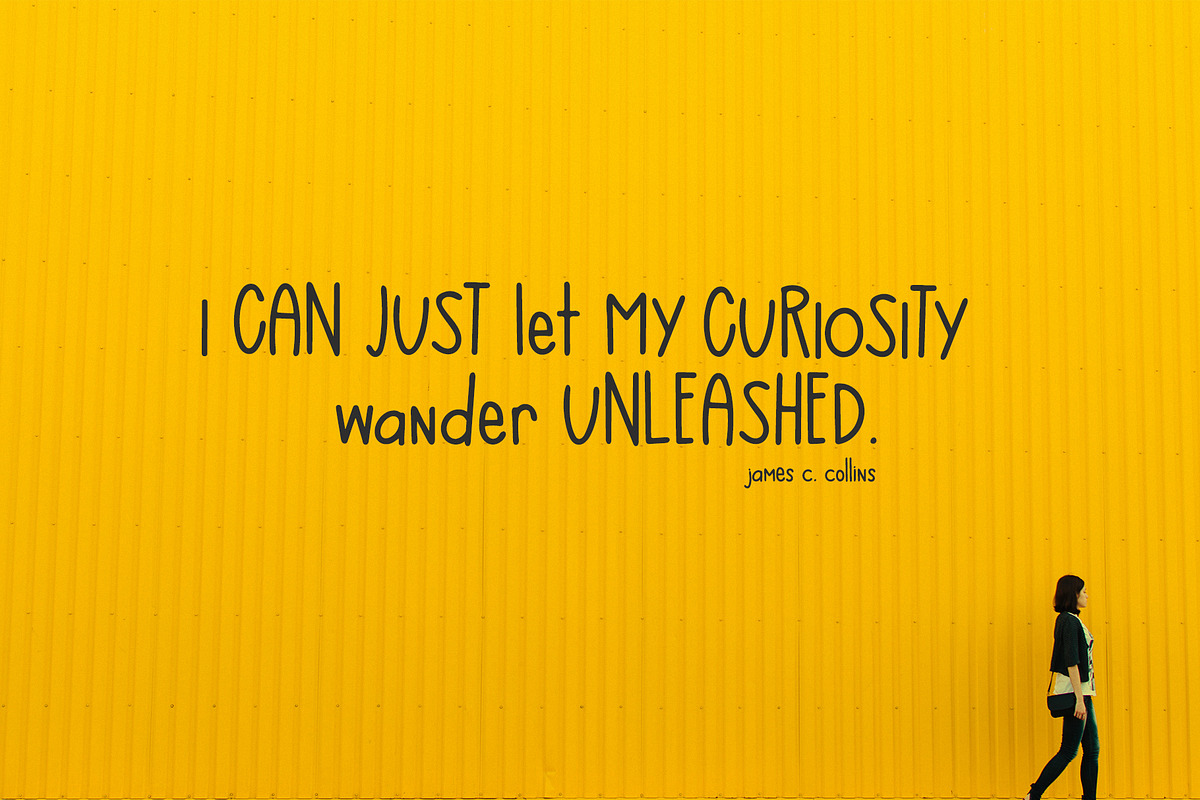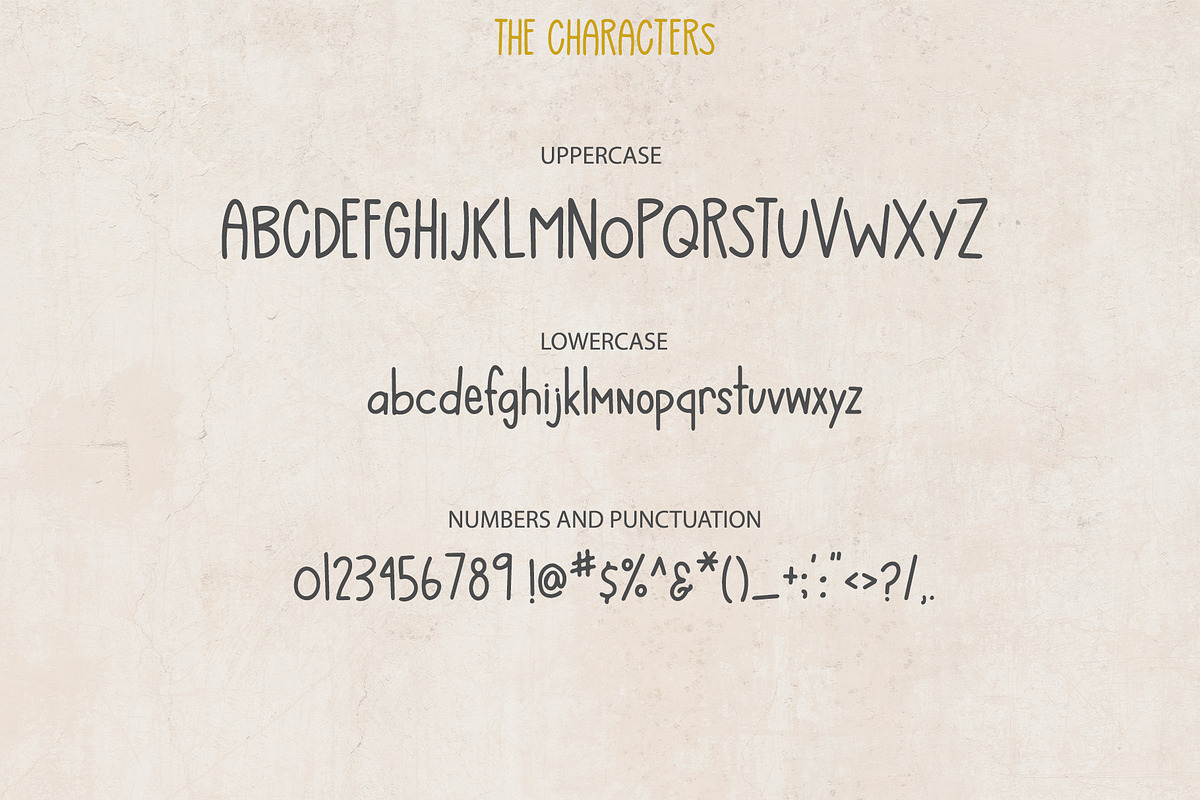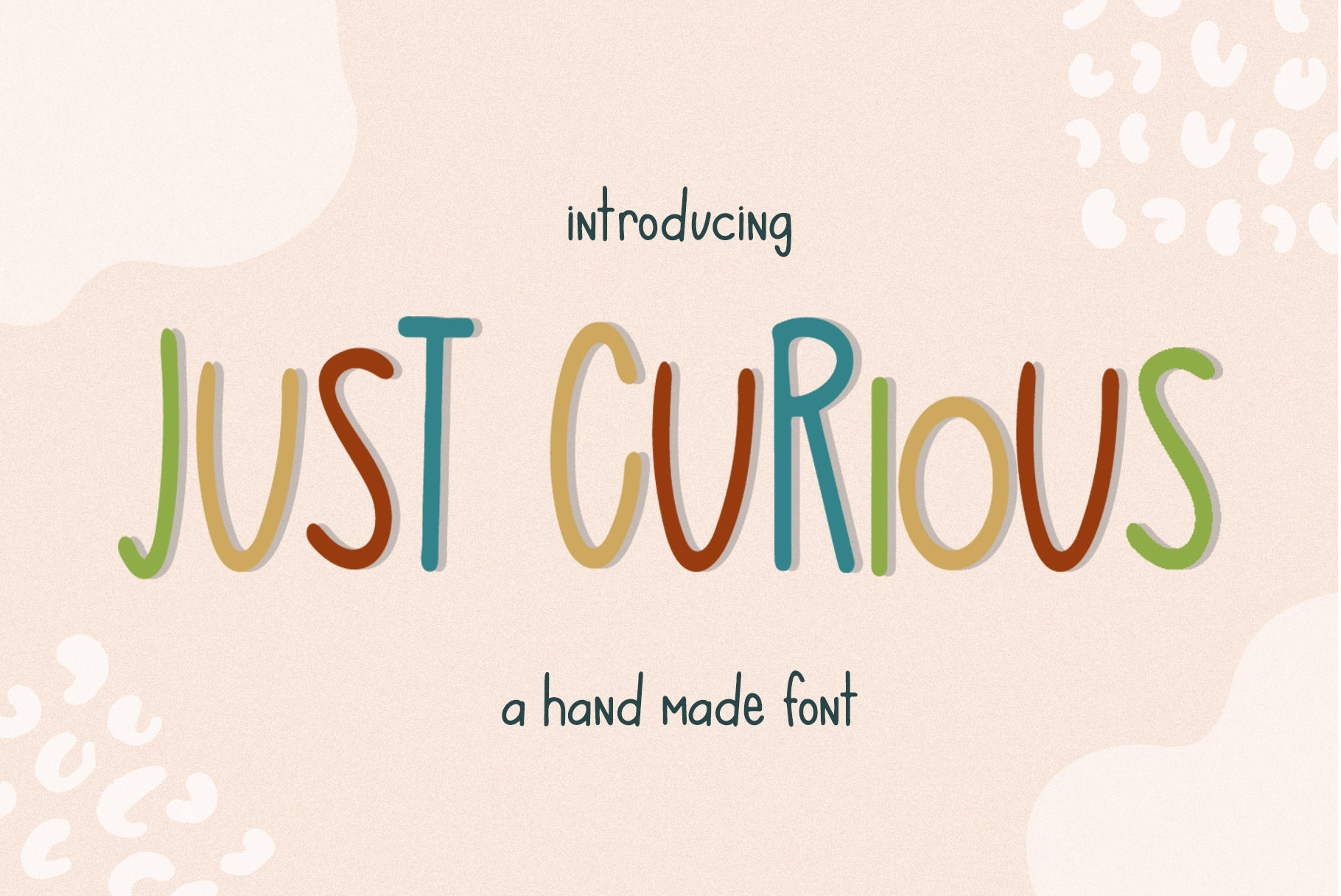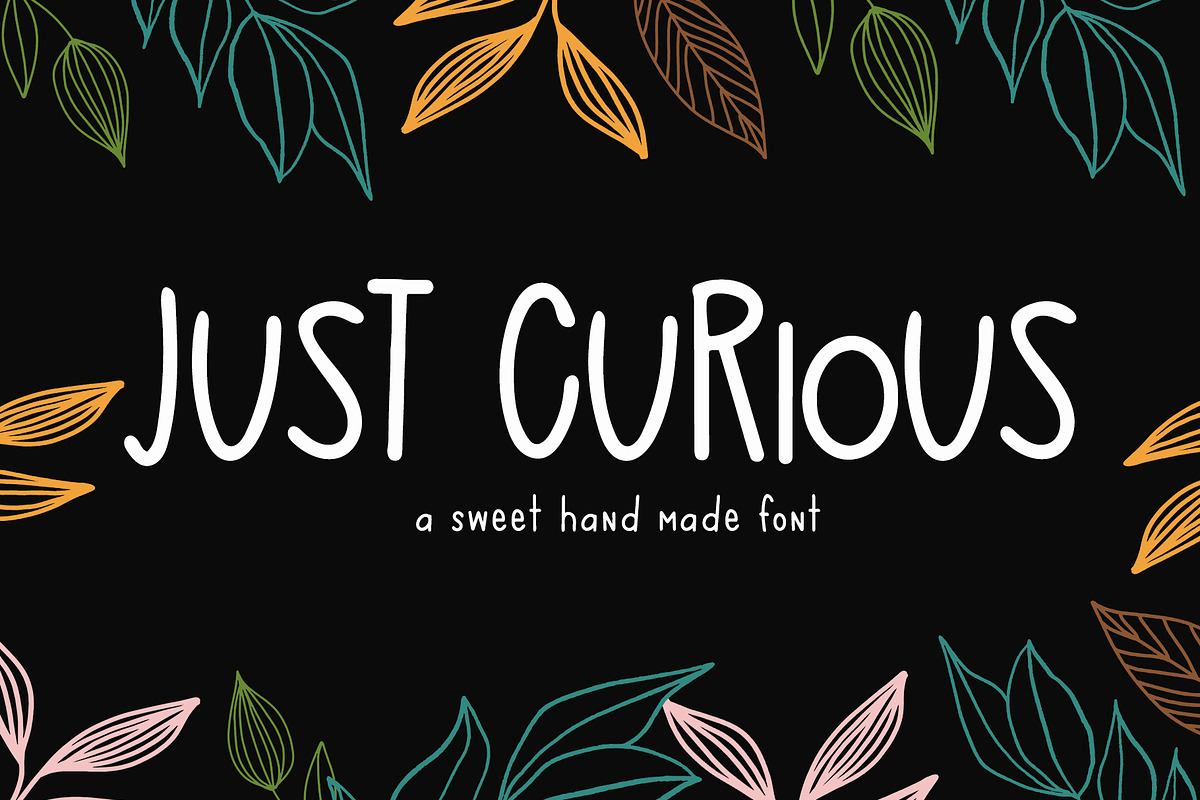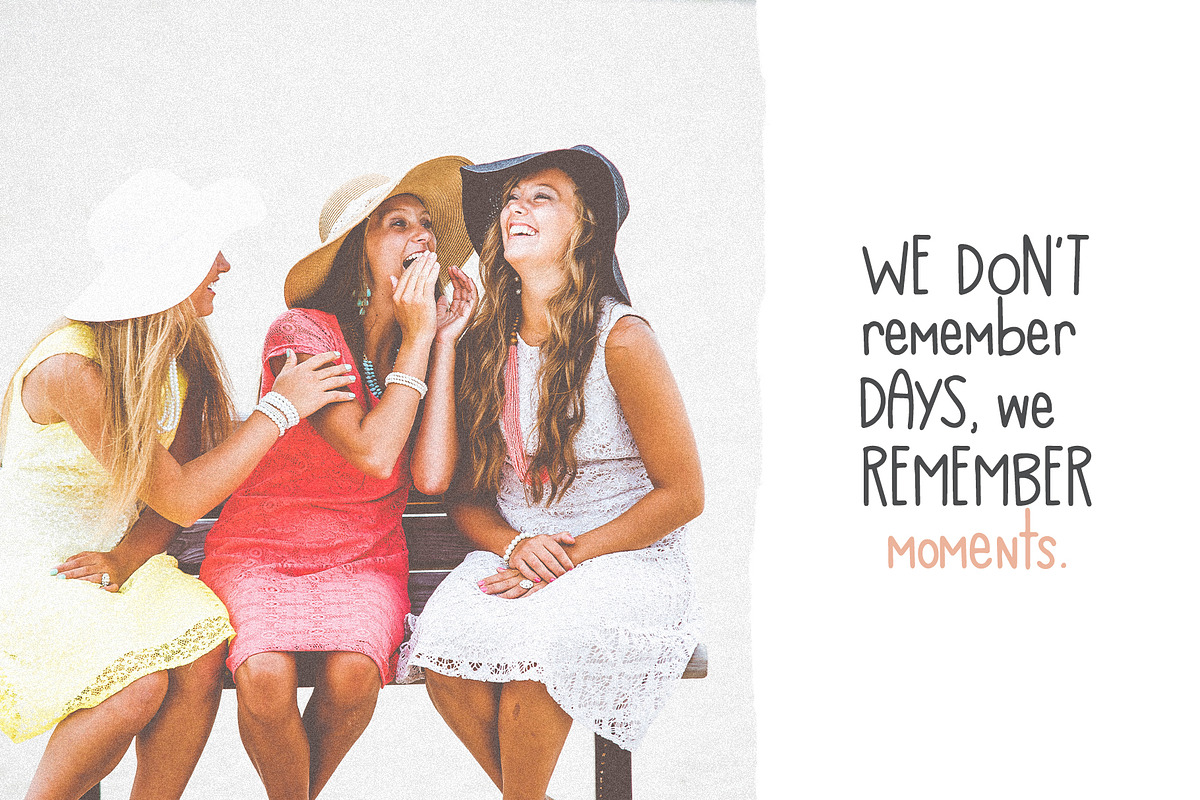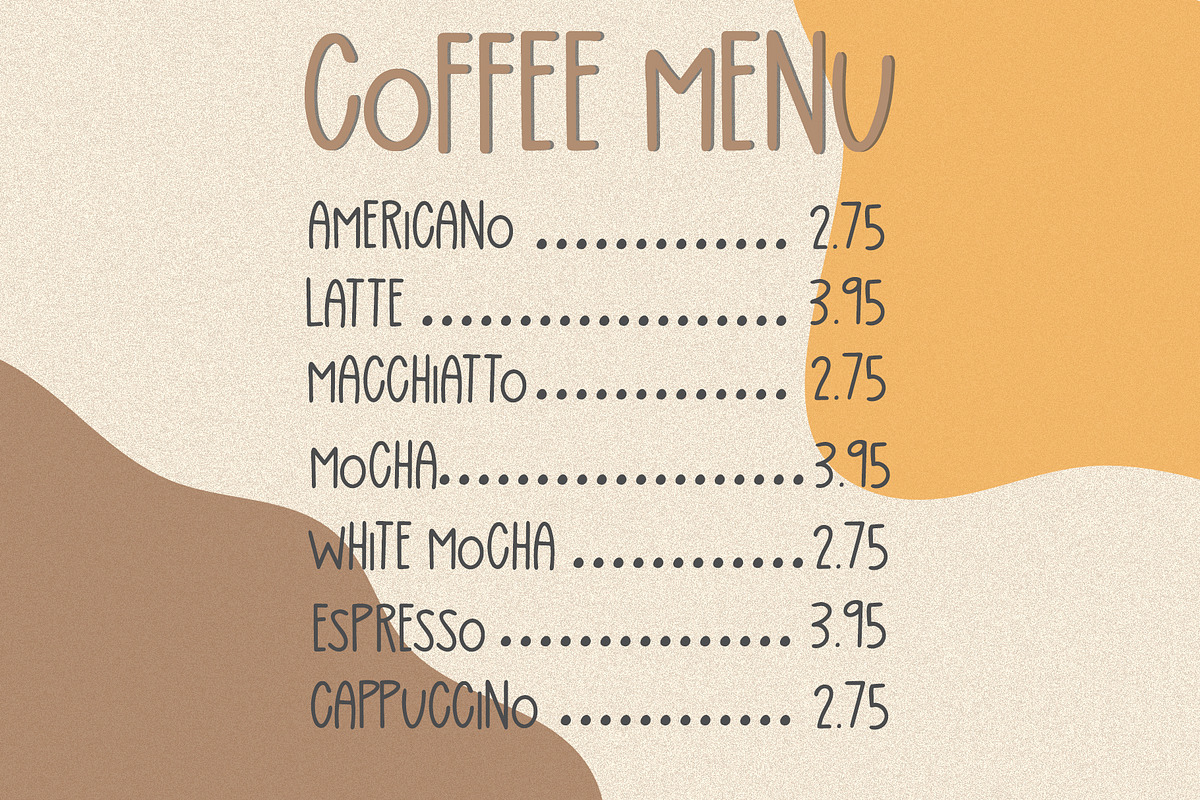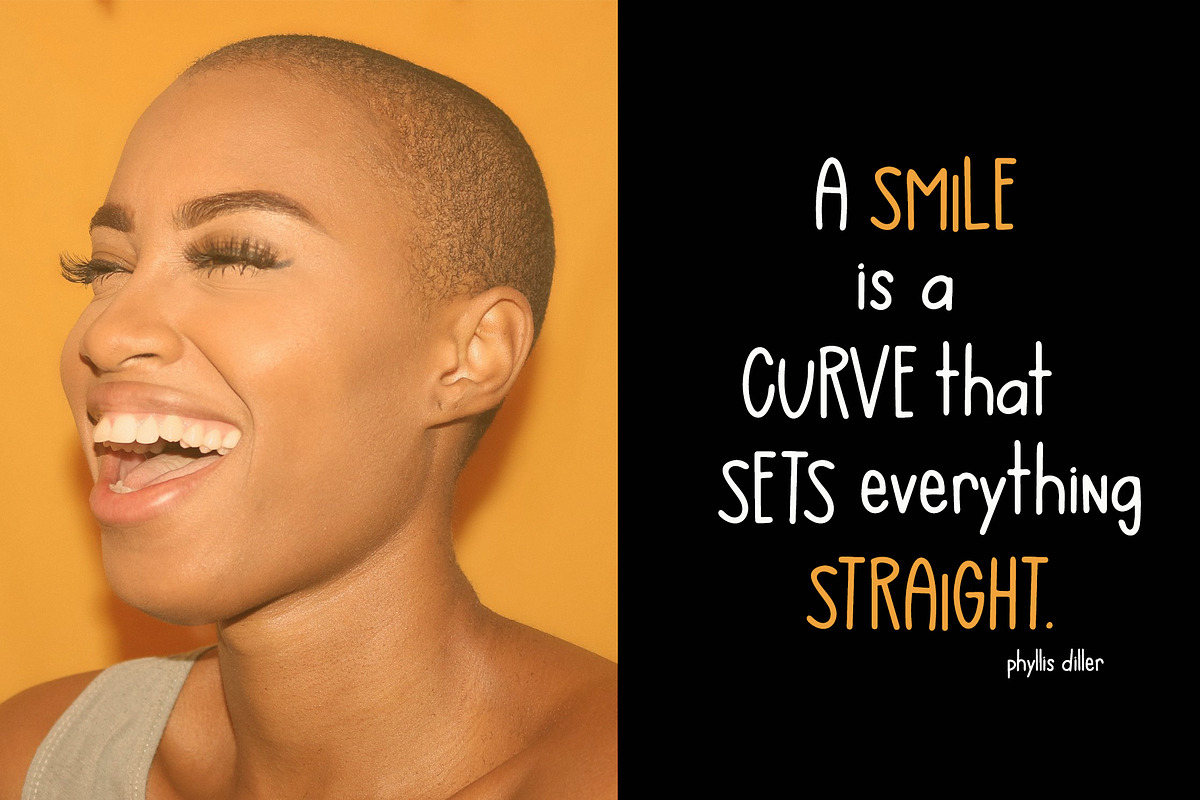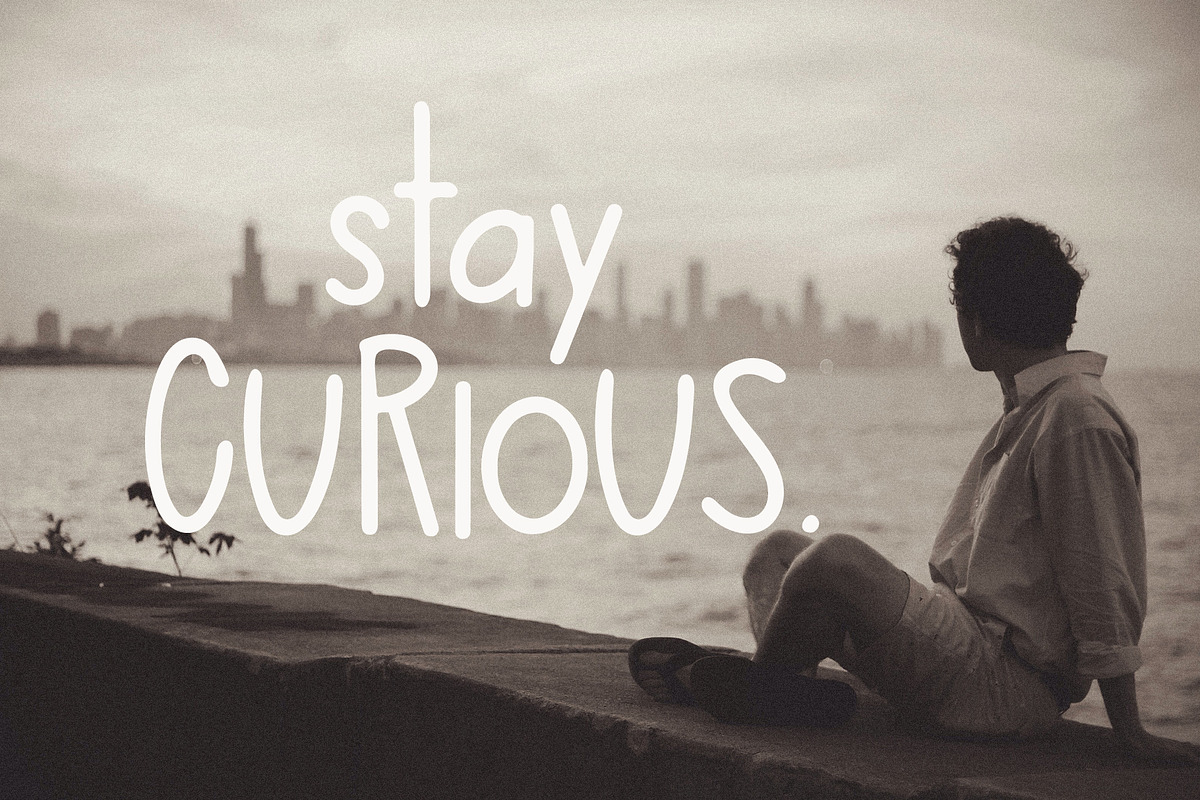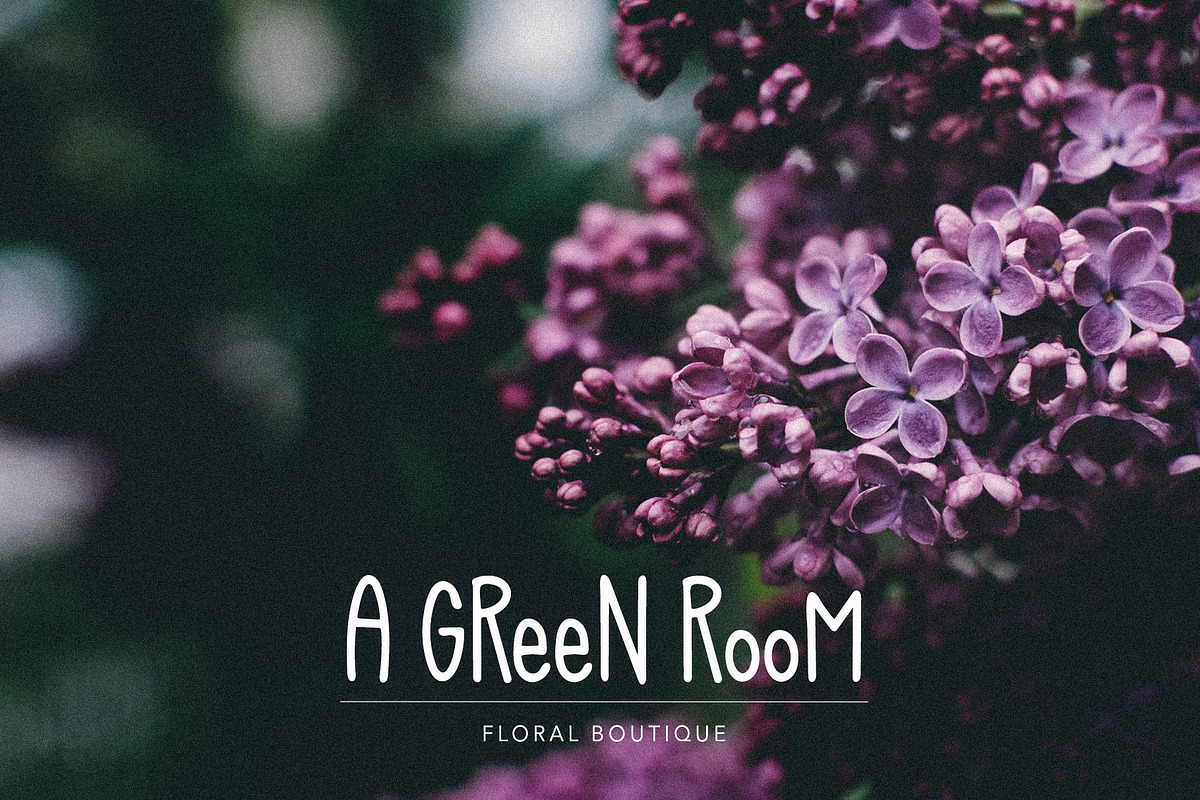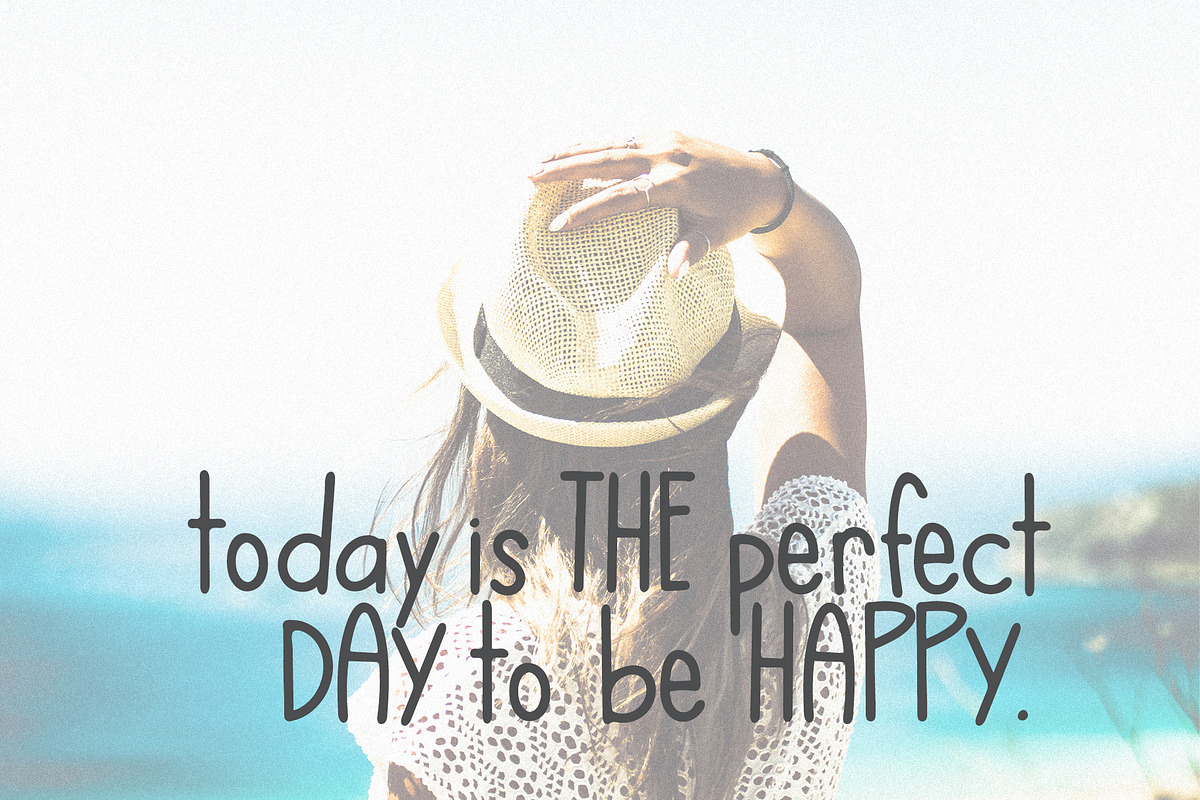
Just Curious Handmade Font
Just Curious is a fun, irregular, modern font. This font is perfect for your DIY projects, blogs, newsletters, social media, and more!